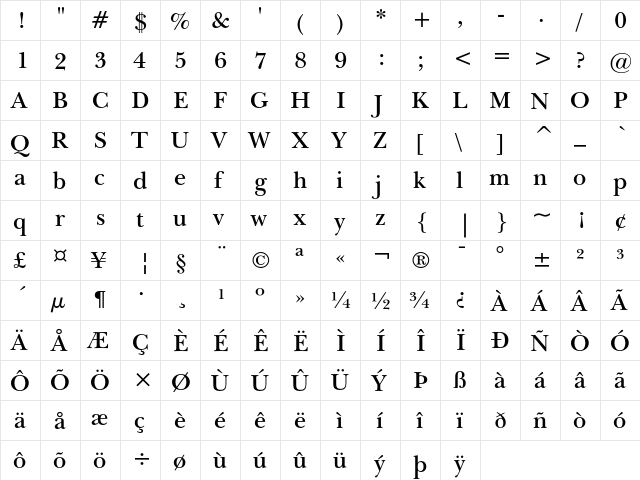
ITC New Baskerville Semi Bold
Design Context for ITC New Baskerville Typeface
ITC New Baskerville offers clean, dependable letterforms without strong stylistic allegiance, making it a practical choice for designers who need flexibility. Its bold stroke weight gives it real presence on the page.
Pro Tip: Pair ITC New Baskerville with a font of contrasting weight or personality to build a more expressive typographic hierarchy.